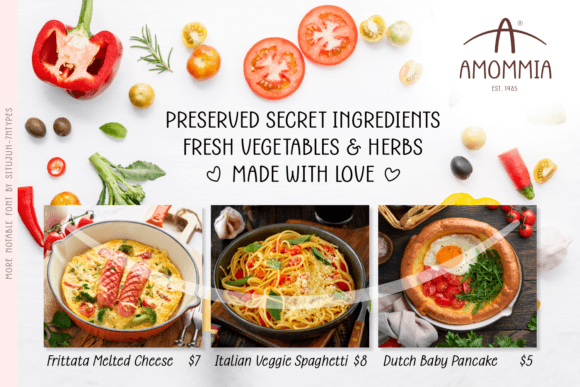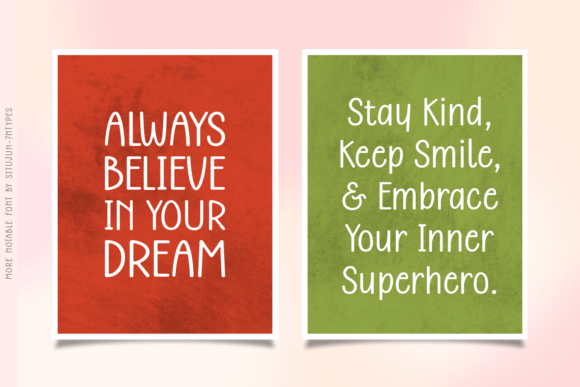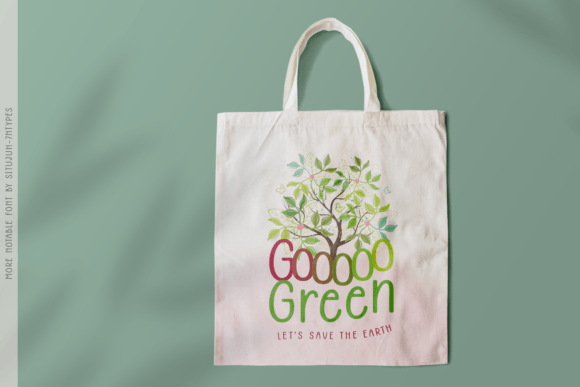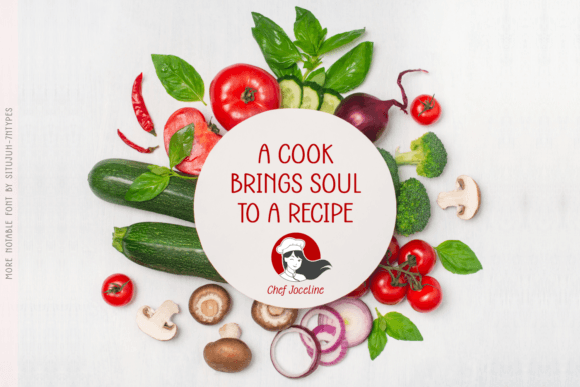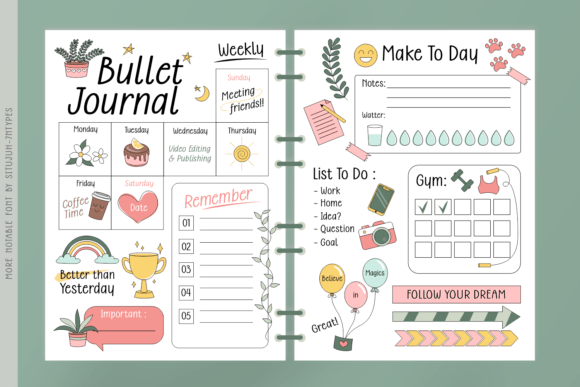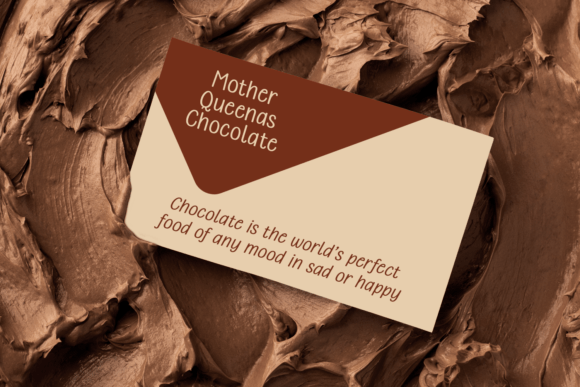
Introduction to More Notable Font
More Notable is a sleek and contemporary script font that embodies elegance and sophistication.
Its thin and flowing lines create a sense of effortless grace and fluidity, making it perfect for designs that require a touch of refined charm This font is sure to leave a lasting impression.
Key Features of More Notable Font